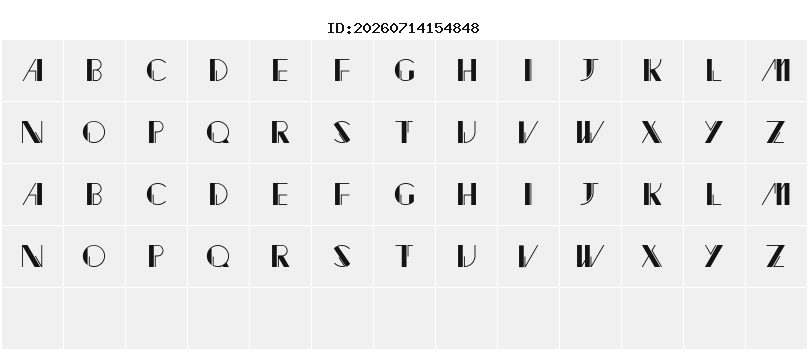
Jacked Preview
• Font Name: Jacked
• Full Font Name: Jacked
• Designer: Lucas Cobb
About Jacked.ttf
Jacked.ttf is a modern, elegant sans-serif font designed for ultimate readability and visual harmony. Perfect for branding, headlines, web design, and print materials.